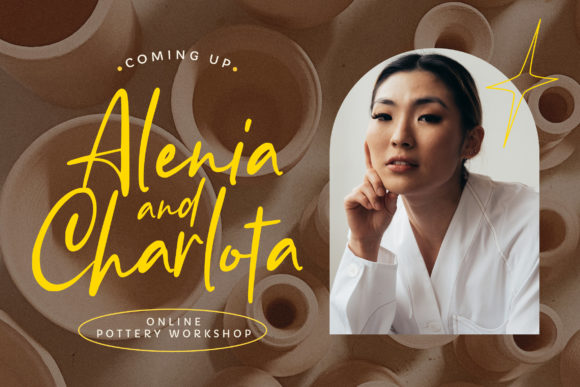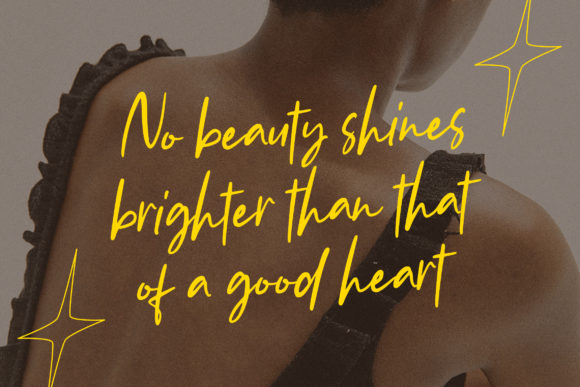
Behior Font
db-ku.com - Script & Handwritten -- Behior is a unique and elegant handwritten font. It looks beautiful on a variety of designs requiring a personalized style, such as wedding invitations, thank you cards, weddings, greeting cards, logos and so on.